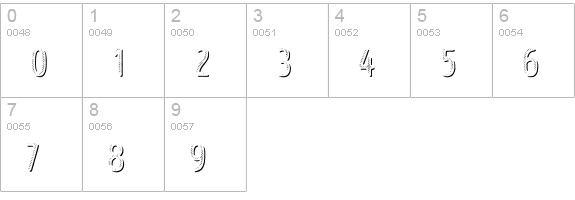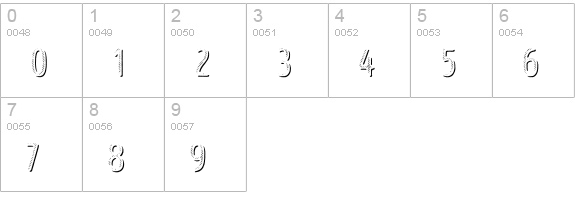
Intro Head R L Shade Font Details
Intro Head R L Shade is a captivating and modern font that exudes a sense of sophistication and style. With its unique blend of sharp edges and sleek curves, this font is perfect for making a bold statement in your designs. The intricate shading adds depth and dimension, making each letter stand out with a dynamic presence. This versatile font is ideal for a wide range of projects, from branding and advertising to packaging and web design. Its bold and striking appearance makes it perfect for headlines, titles, and any text that needs to grab attention. Best of all, Intro Head R L Shade is available for free download at FontsMarket.com. Whether you're a seasoned designer looking to add a fresh touch to your work or a newcomer eager to experiment with new fonts, Intro Head R L Shade is sure to impress with its modern aesthetic and bold character. Download it today and elevate your designs to new heights!